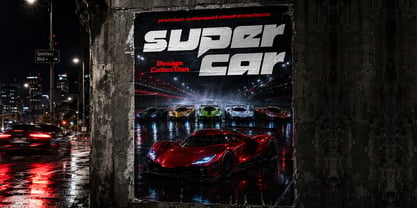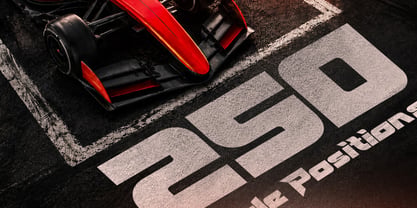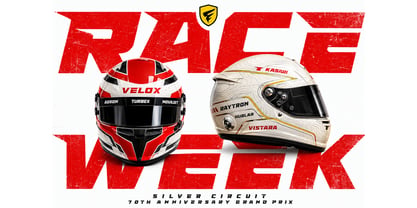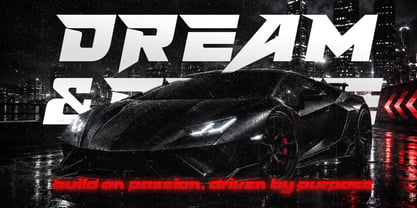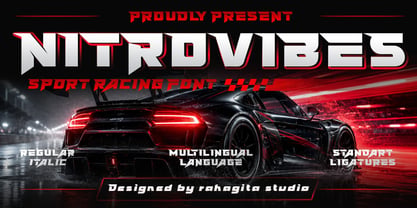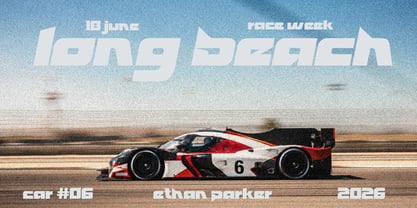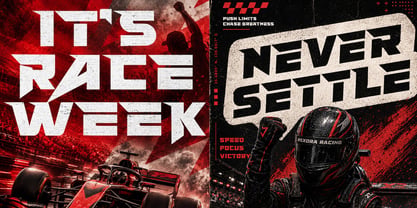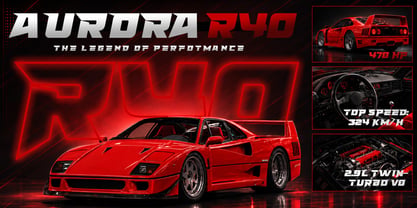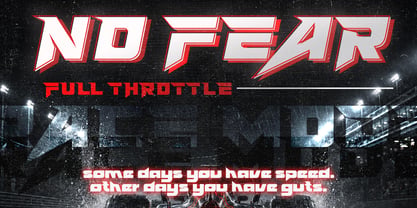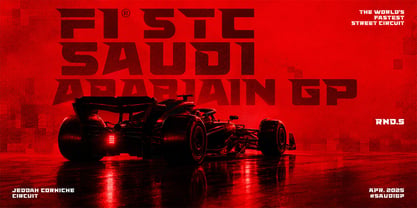
Nitrovibes
Die Schriftfamilie Nitrovibes wurde von Setiadi Rahagita entworfen und von RahagitaType veröffentlicht. Nitrovibes enthält 2 Stile und Familienpaketoptionen. Mehr über diese Familie
Nitrovibes is a bold, aggressive sport racing display typeface designed for projects that demand raw speed and maximum visual impact. Created by Rahagita Studio, Nitrovibes channels the adrenaline of Formula 1, street racing, and high-performance automotive culture into every letterform — delivering sharp angles, dynamic proportions, and an unmistakable motorsport aesthetic that looks at home on race posters, helmet liveries, jersey graphics, supercar campaigns, and competitive gaming visuals.
Whether you're designing for a motorsport event, an esports team, an automotive brand, or a streetwear drop with racing DNA, Nitrovibes hits the apex every time.